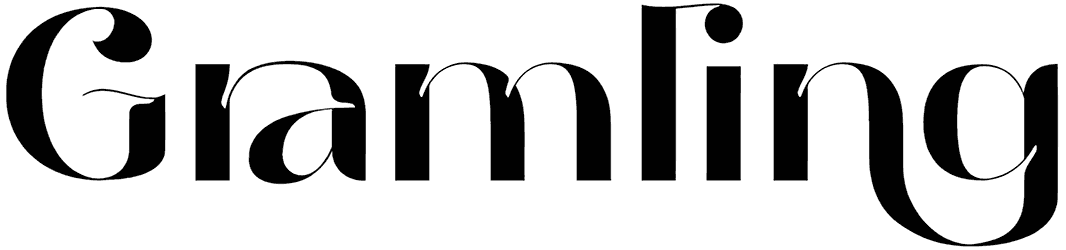
Gramling Font
Gramling is a pure mixture of elegance and professionalism that comes with soft, delicate, and timeless characters. This sans serif font has an incredibly unique style, so it can provoke a sense of minimalistic, dynamism, or dreaminess in the audience’s minds and engage them with your creative content at first contact.